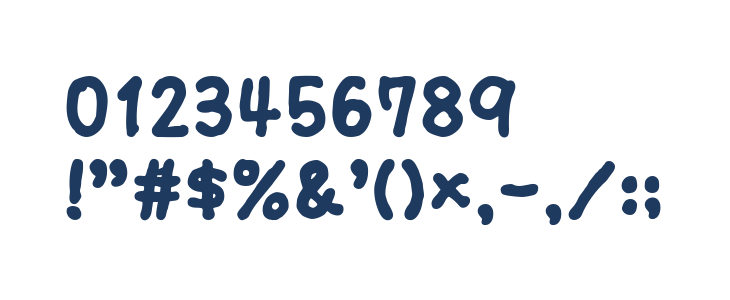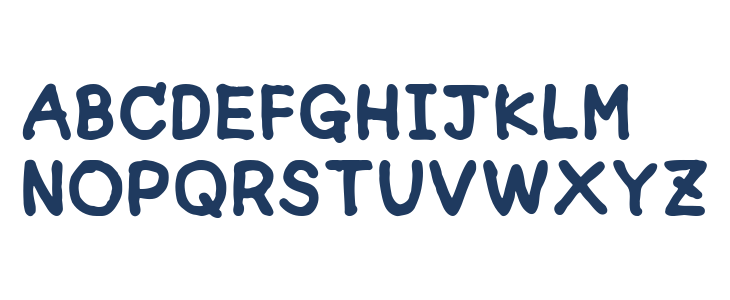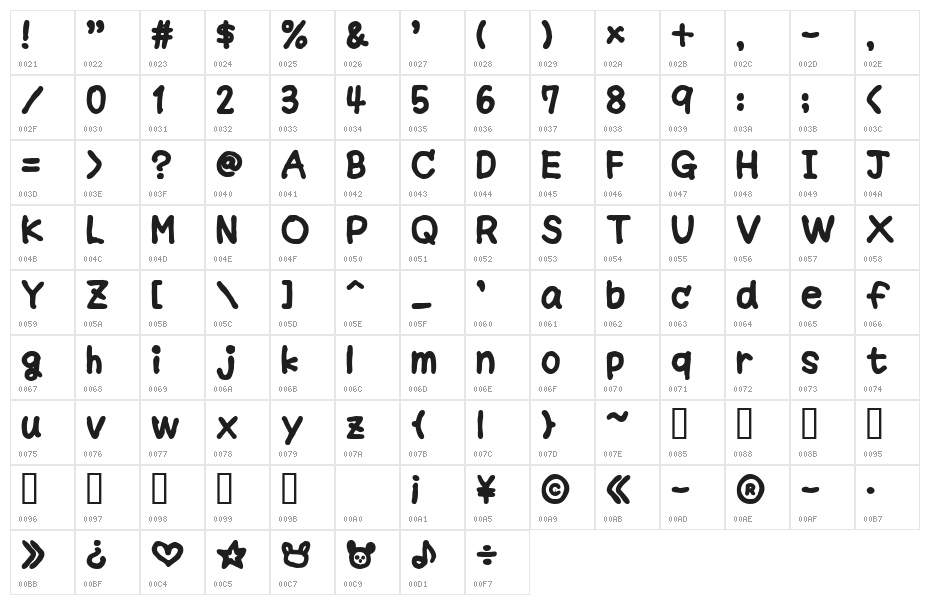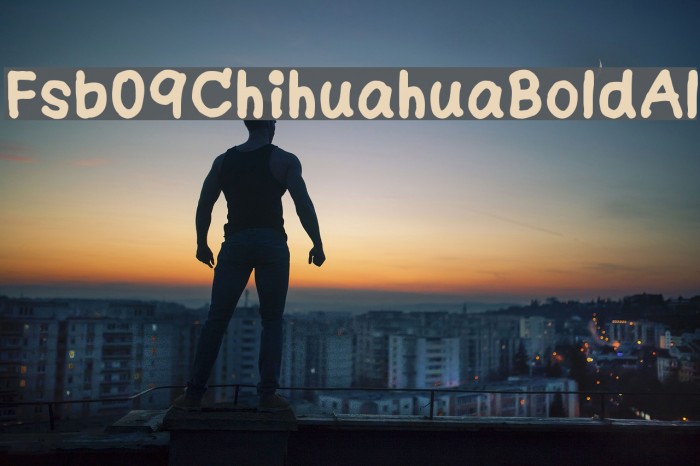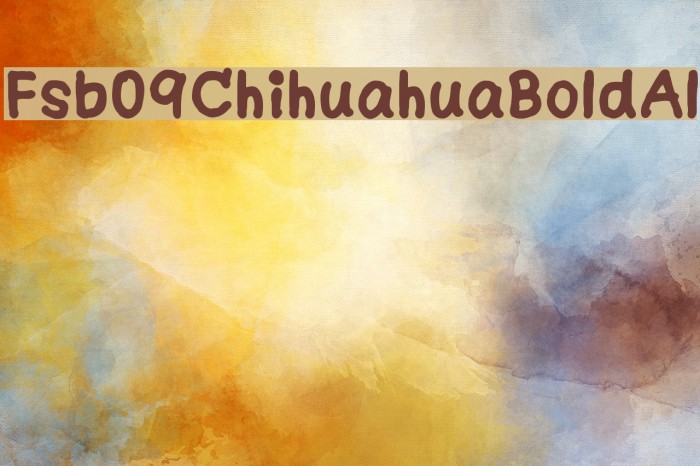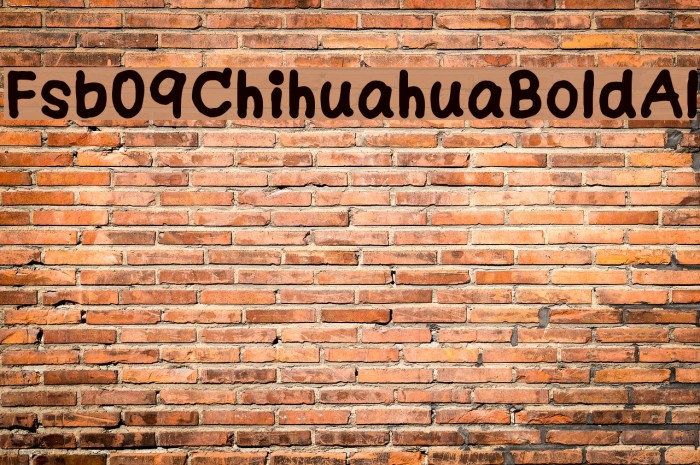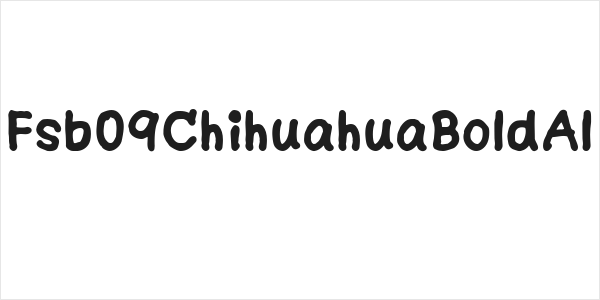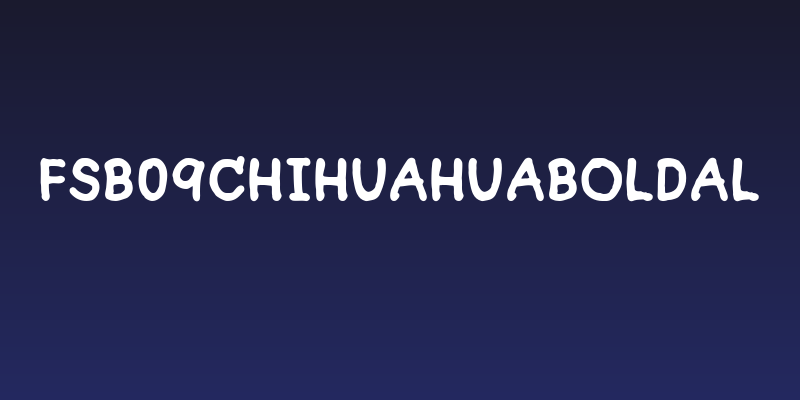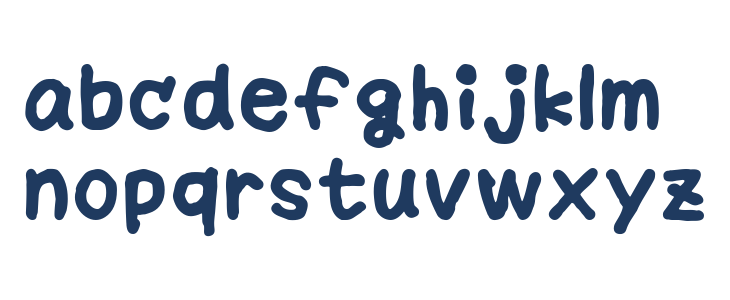
Fsb09ChihuahuaBoldAl Font
Fsb09ChihuahuaBoldAl Description
This font features a playful and bold style with rounded edges and a hand-drawn appearance. The characters are slightly irregular, giving it a casual and friendly feel. The uppercase and lowercase letters maintain a consistent weight, contributing to its boldness. Numbers and special characters follow the same design, ensuring uniformity across all glyphs. The font's thick strokes and rounded forms make it highly legible, even at smaller sizes. Its whimsical nature makes it suitable for projects that require a touch of fun and creativity.
| Proposed Projects | Ideal for children's books, playful branding, casual invitations, and creative posters. |